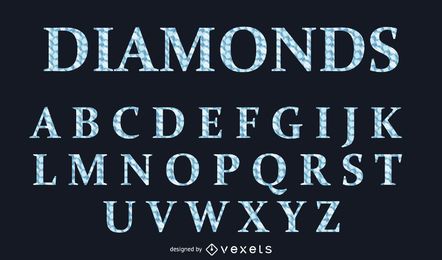
Diamond Style Alphabetic Typeface
Nice looking set includes A-Z alphabetical letters in diamond style typeface visual. The alphabets are in uppercase shapes made of small diamonds along with the shiny bright sparkles on black background. Enjoy!!